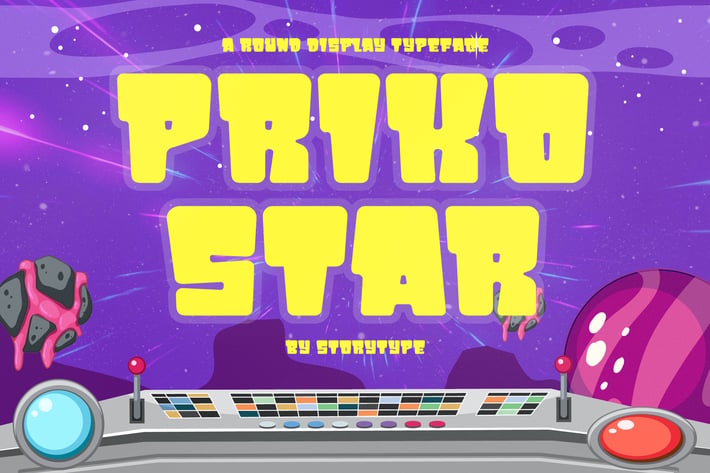
Priko Star Display Font
Priko Star is a fun rounded display typeface built for playful, retro-futuristic vibes with a bold cartoon punch. Its chunky letterforms, soft corners, and bubbly proportions make it perfect for kids branding, space-themed posters, game titles, and any design that needs loud, cute, and attention-grabbing typography.
Bold rounded display font with playful character
Chunky cartoon-style letterforms
High readability for titles and posters
Perfect for colorful, fun layouts
Game titles & UI headers
Kids branding and toy packaging
Space-themed posters and event flyers
Cartoon logos and stickers
Social media graphics and promos
Blast off your designs with a bubbly space vibe — bold, cute, and made to shine like a star.*